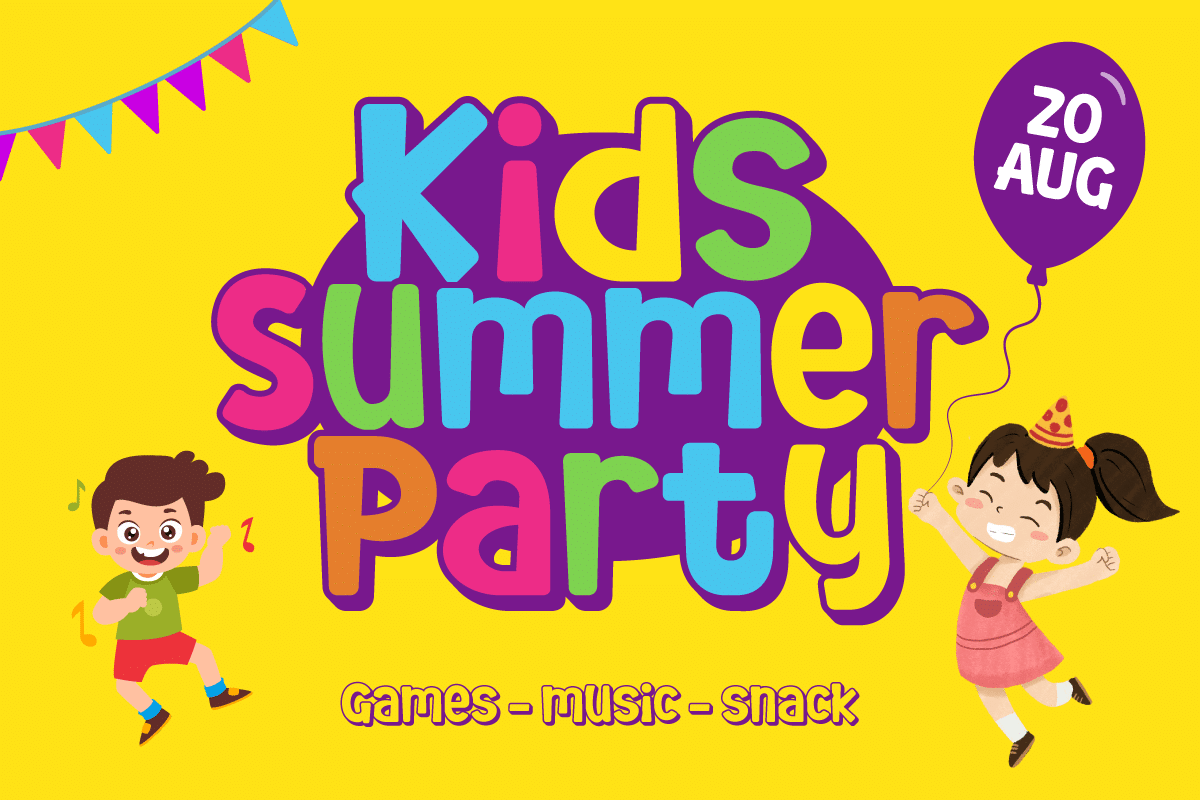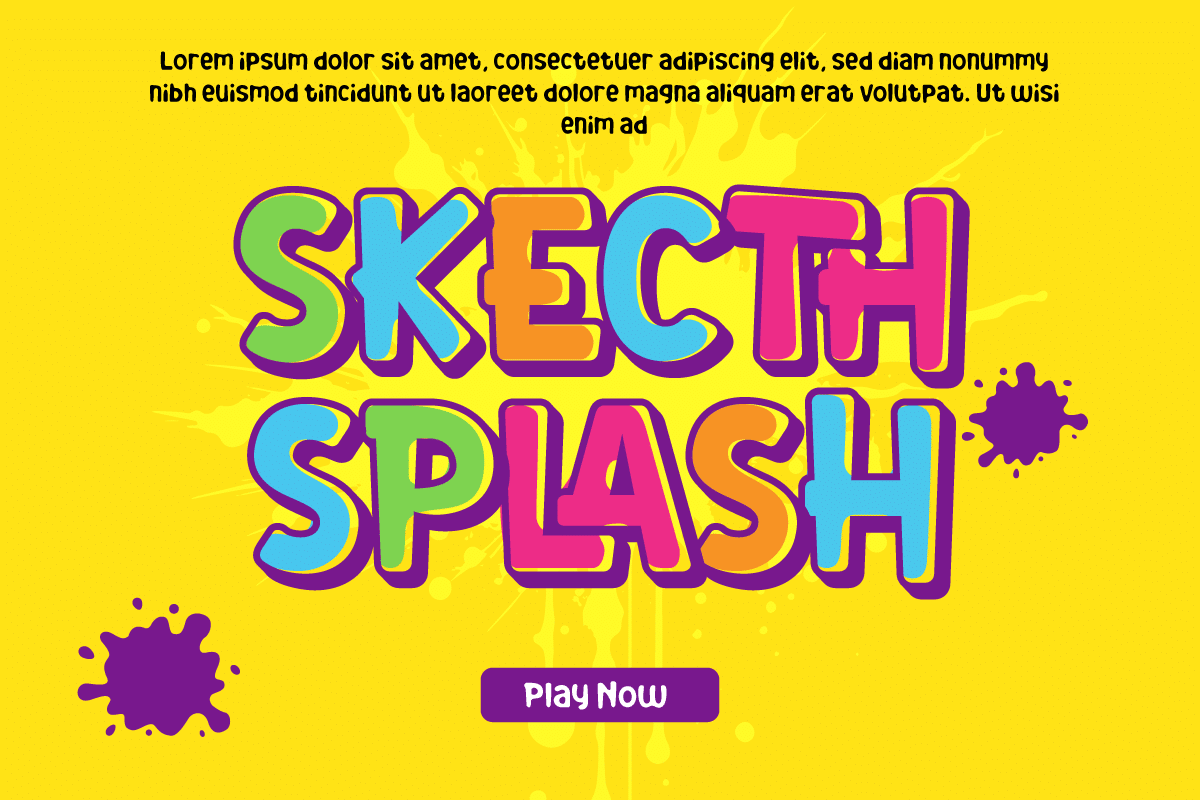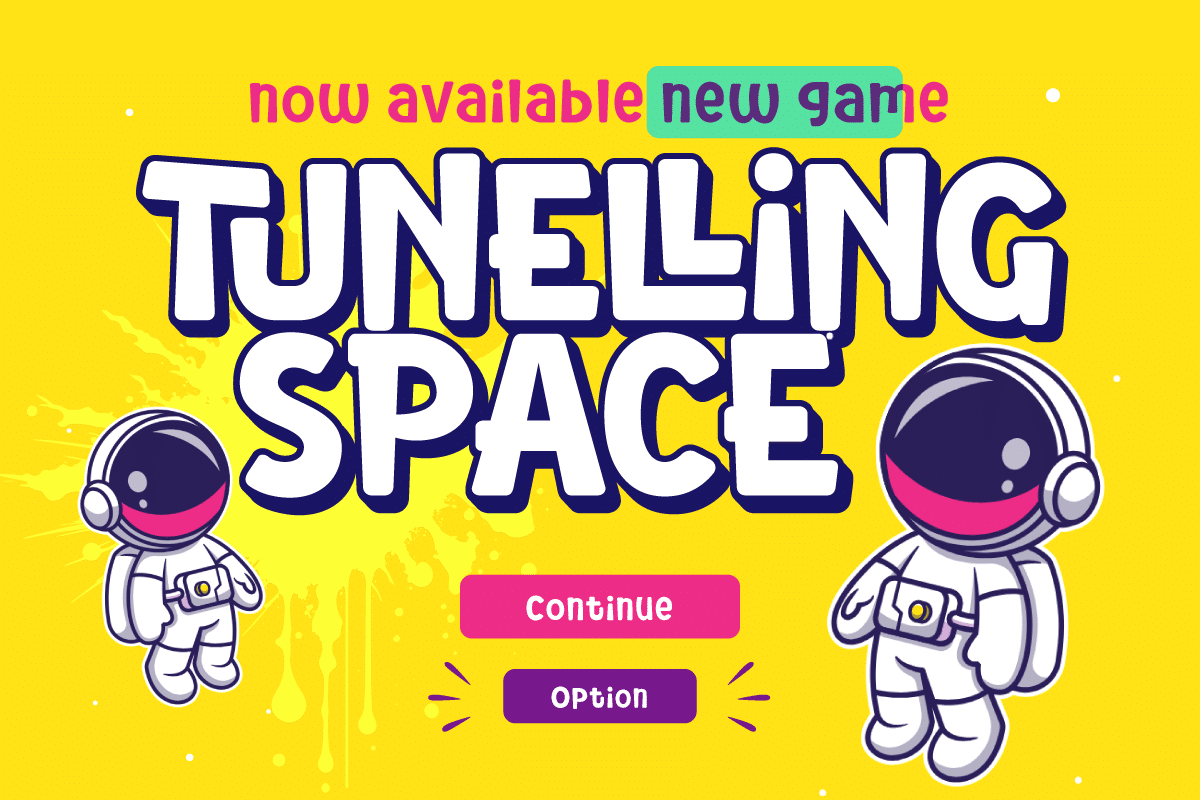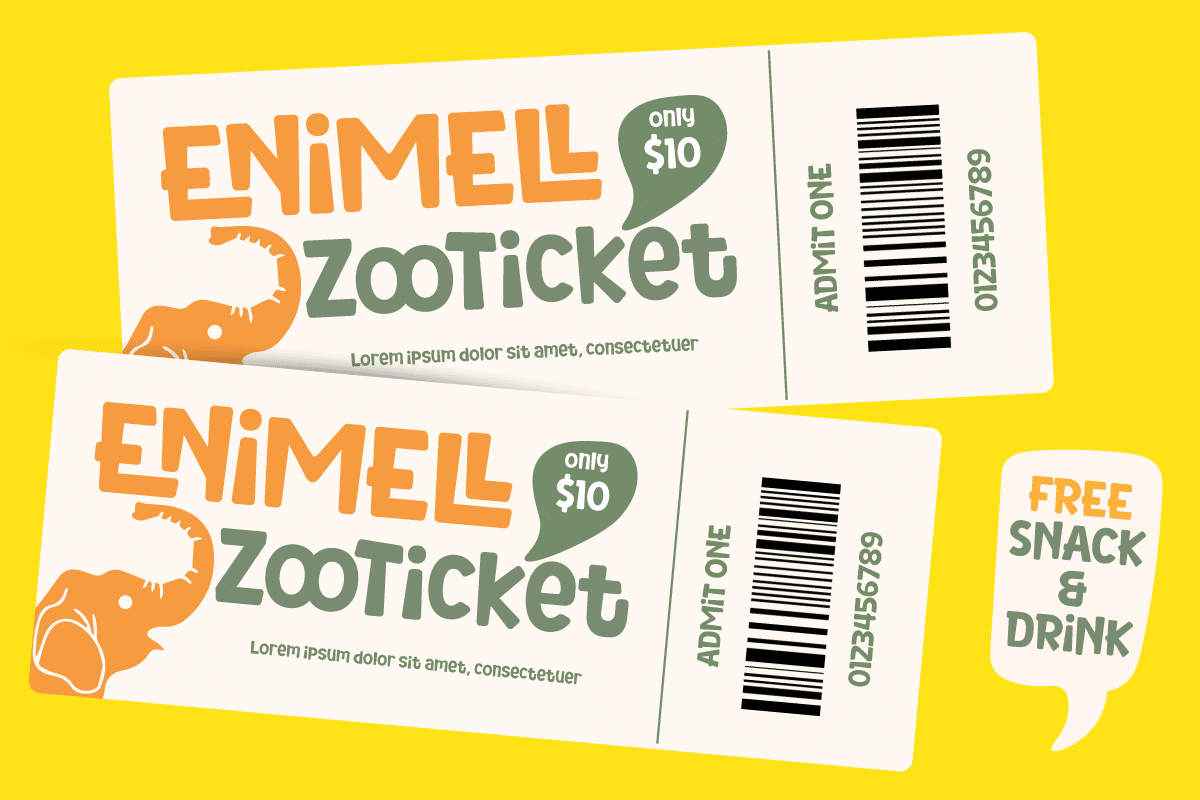
Nerillkid Font
Nerillkid is more than just a font, it is a journey into a world full of color and typographic fun. Like balloons floating in the sky, this font brings each character a spirit of play and creativity.
Nerillkid’s Regular Style is the basis of this adventure. With softness and flexibility, each letter forms words like toys that compose an unexpected story.